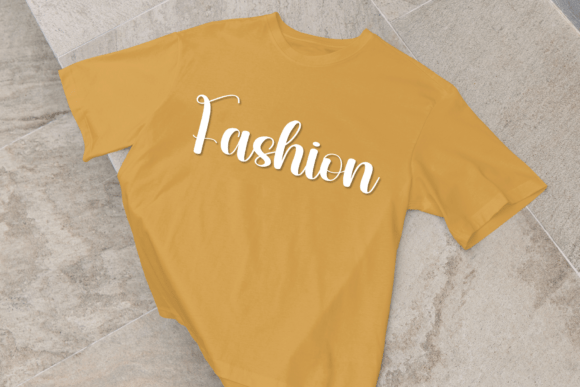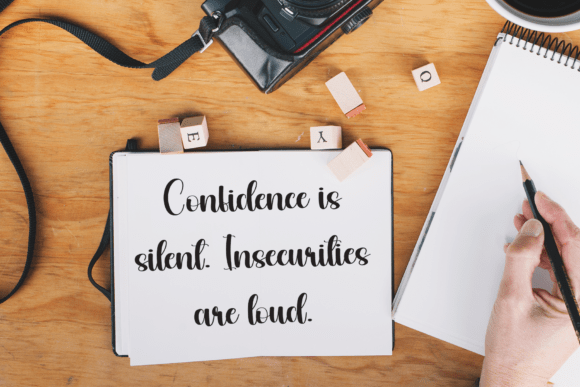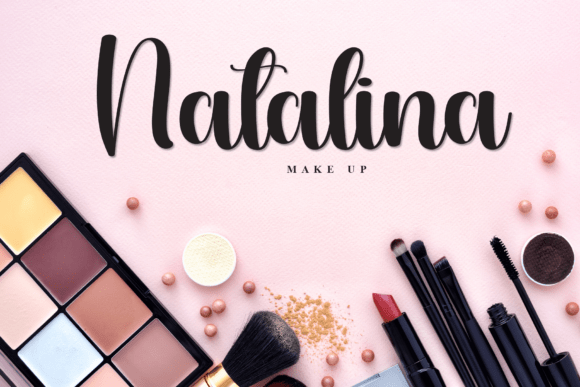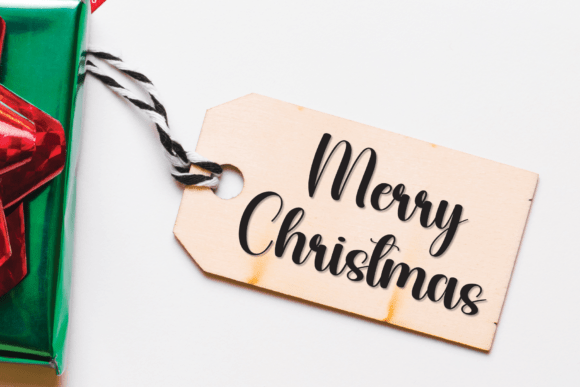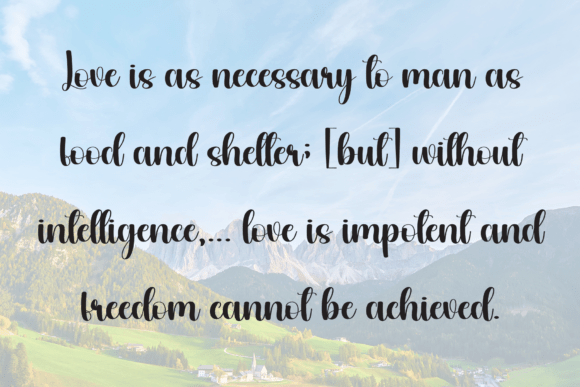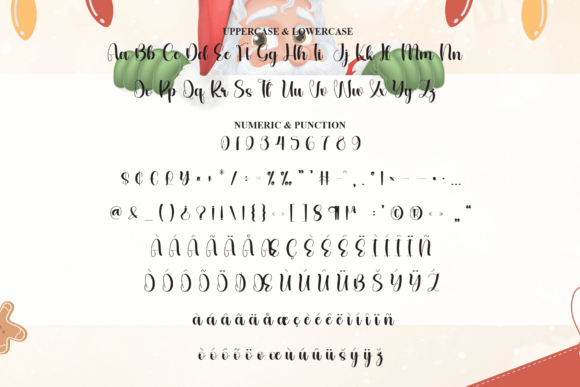
Introduction to Santa Wednesday Font
Enter the enchanting Santa Wednesday Font, a delightful handwritten display font that’s sure to bring a smile to your face and a touch of whimsy to your designs. With its masterful blend of sweetness and friendliness, this font is the perfect addition to any creative project that needs a dash of fun and personality.
Key Features of Santa Wednesday Font
- High-quality font design ideal for creative projects, offering a unique and festive touch.
- Unique, hand-drawn design inspired by traditional holiday illustrations, adding a touch of whimsy to any creative project.
Honest Review: Santa Wednesday Font
I recently stumbled upon the Santa Wednesday Font, and I must say it’s a delightful addition to any creative project. This font is perfect for those looking to add a touch of whimsy and playfulness to their designs.
- ✨ High-quality design: The Santa Wednesday Font is meticulously crafted with attention to detail, making it a great resource for designers.
- ⚠️ Limited font styles: The Santa Wednesday Font only comes in a few styles, which may limit its versatility in certain projects.
- ⚠️ Not ideal for formal designs: The font’s playful nature may not be suitable for formal or professional designs.
Overall, I’m impressed with the Santa Wednesday Font’s potential as a design resource. While it may have some limitations, its high-quality design and free download make it a great option for designers looking to add a touch of creativity to their projects.
Santa Wednesday Font
The Santa Wednesday Font is a high-quality, free design resource perfect for adding a festive touch to your creative projects. With its transparent background and elegant design, this font is ideal for use in various digital platforms.
The Santa Wednesday Font is ideal for use in various creative projects, such as:
- Christmas card designs
- Holiday marketing materials
- Wedding invitations